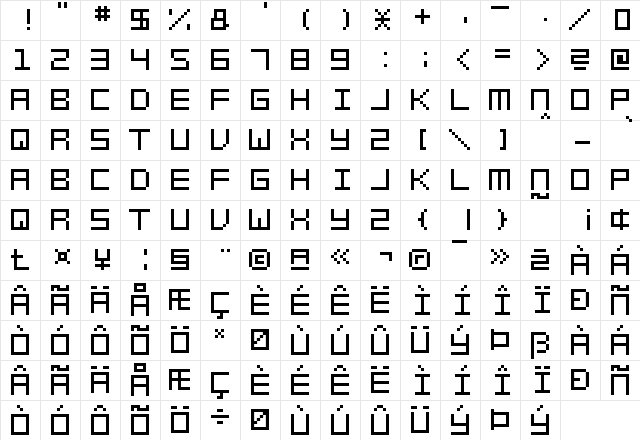
SWF!T_v02 Regular Font Preview
SWF!T_v02 Regular
Design Context for SWF!T_v02 Typeface
SWF!T_v02 offers clean, dependable letterforms without strong stylistic allegiance, making it a practical choice for designers who need flexibility.